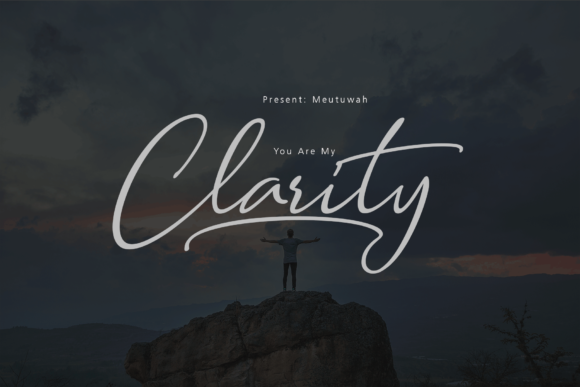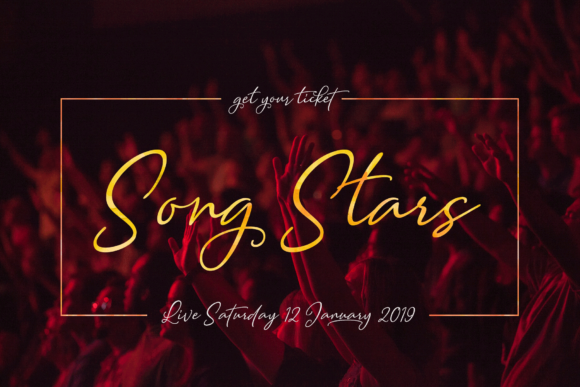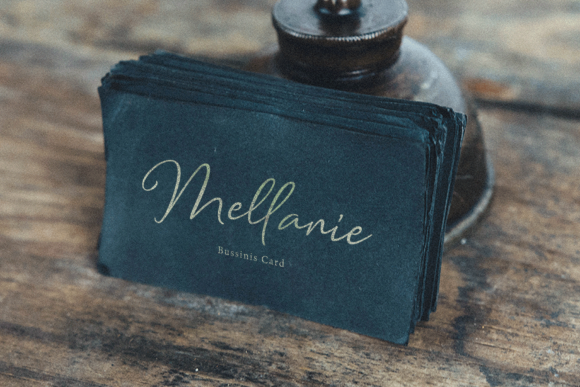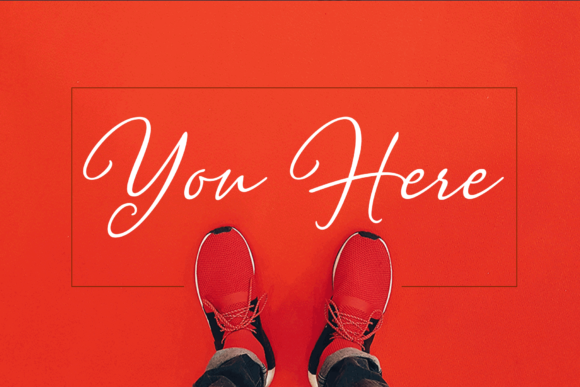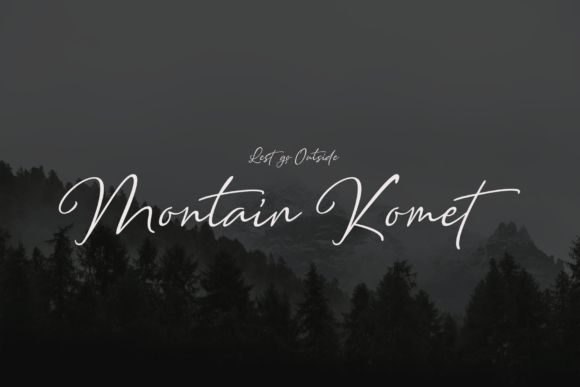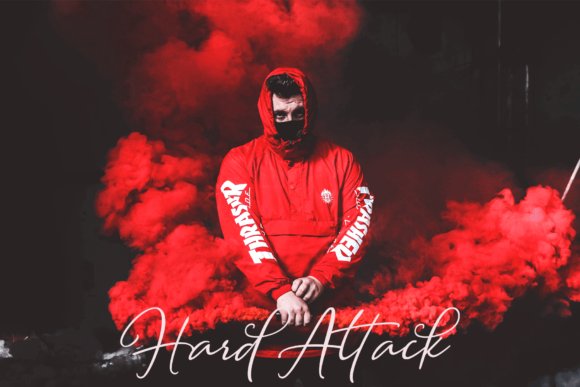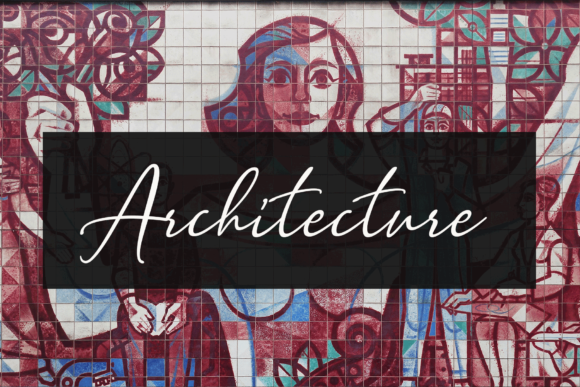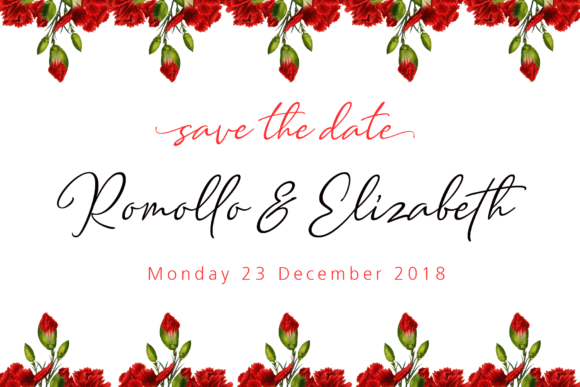
Clarity Font
About Clarity Font
The Clarity is a stylish calligraphy script. It has smooth lines with a classic and interesting touch. Perfect for logos, headlines, invitations, badges, and much more!